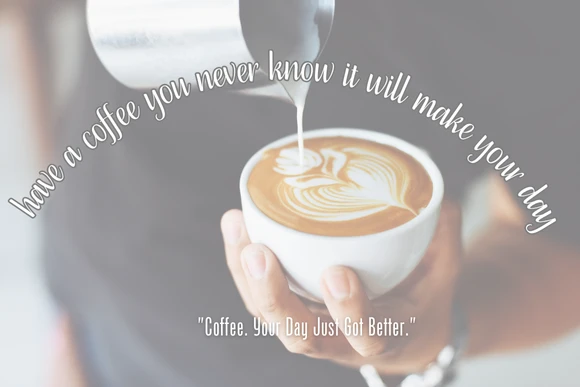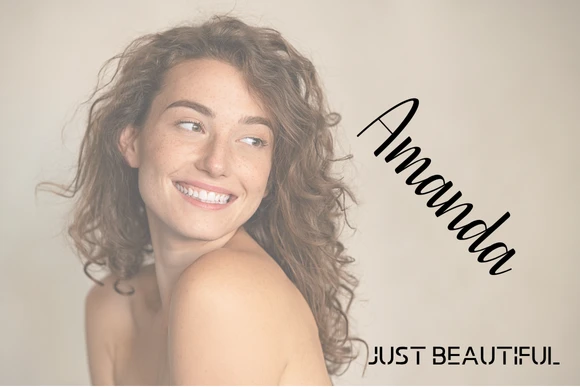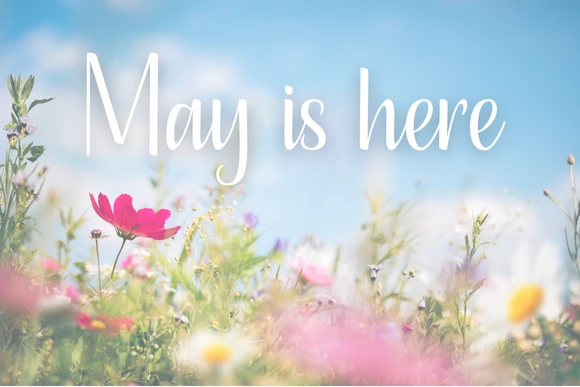
Serve up irresistible designs with Food Is Ready Fonts — a fun handwritten typeface inspired by home-cooked meals, cafés and street-food markets. Its lively strokes and friendly curves give your text an appetising, welcoming feel that’s perfect for food-related brands, bloggers and small businesses.
Use Food Is Ready Fonts for restaurant menus, café chalkboards, food truck branding, recipe books, cooking blogs, product packaging, flyers, event invitations and social media graphics. Its clear, approachable style makes it ideal for both print and digital projects.